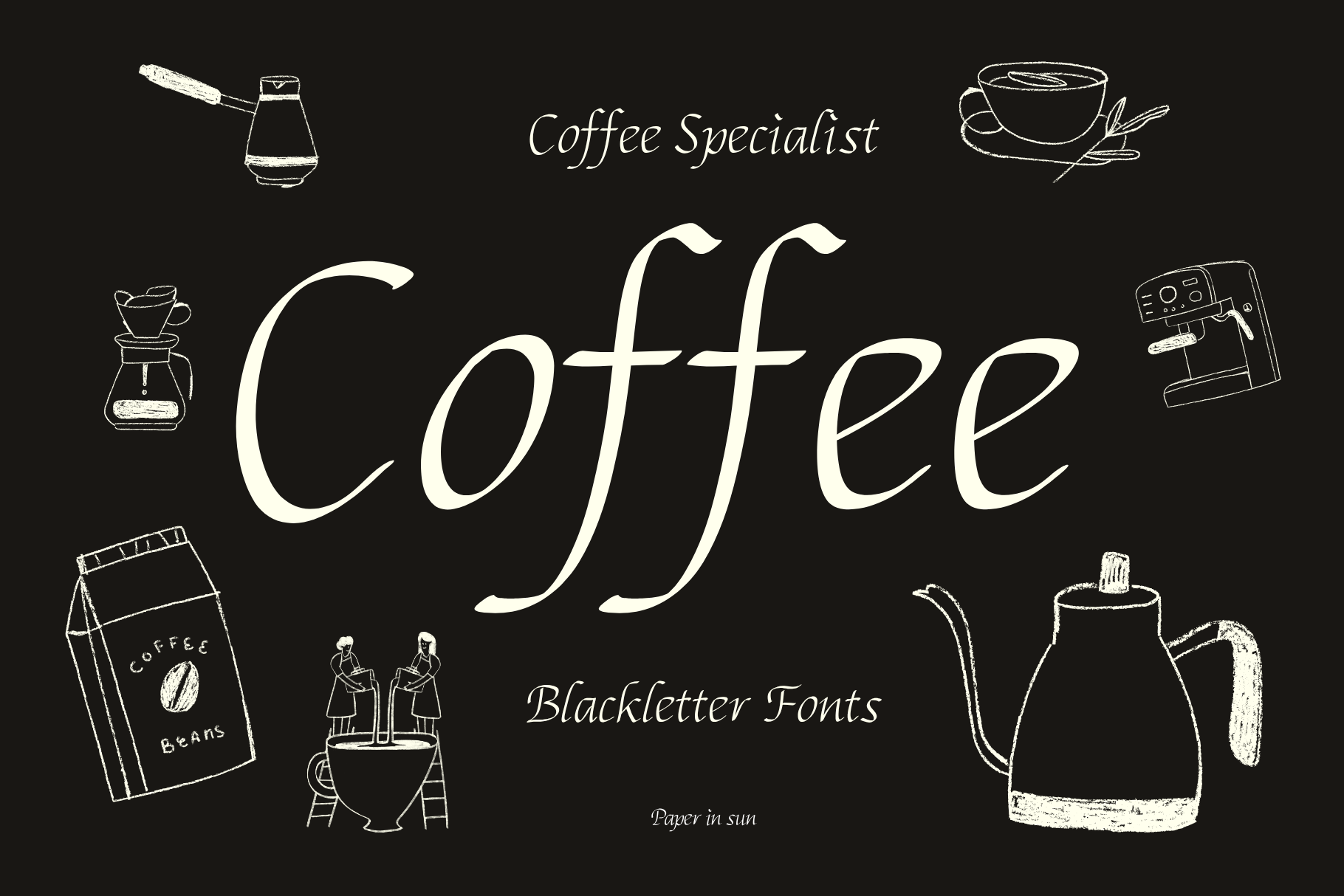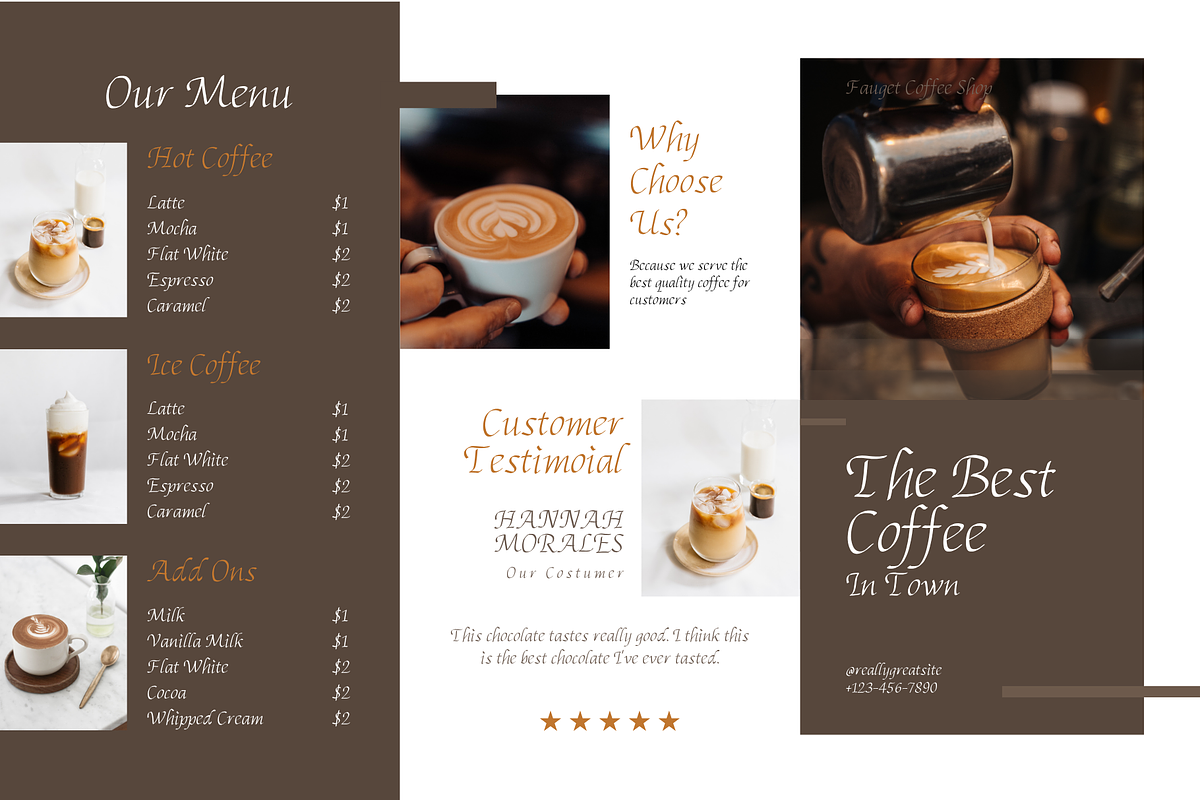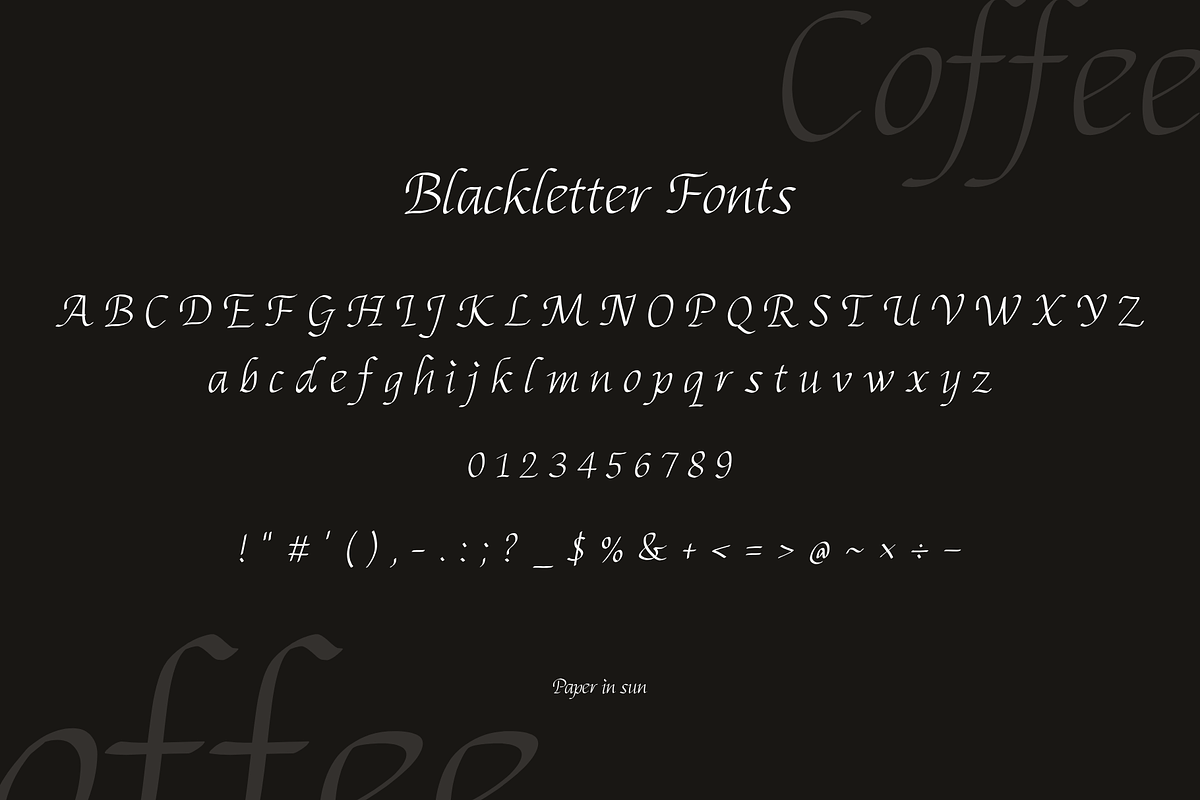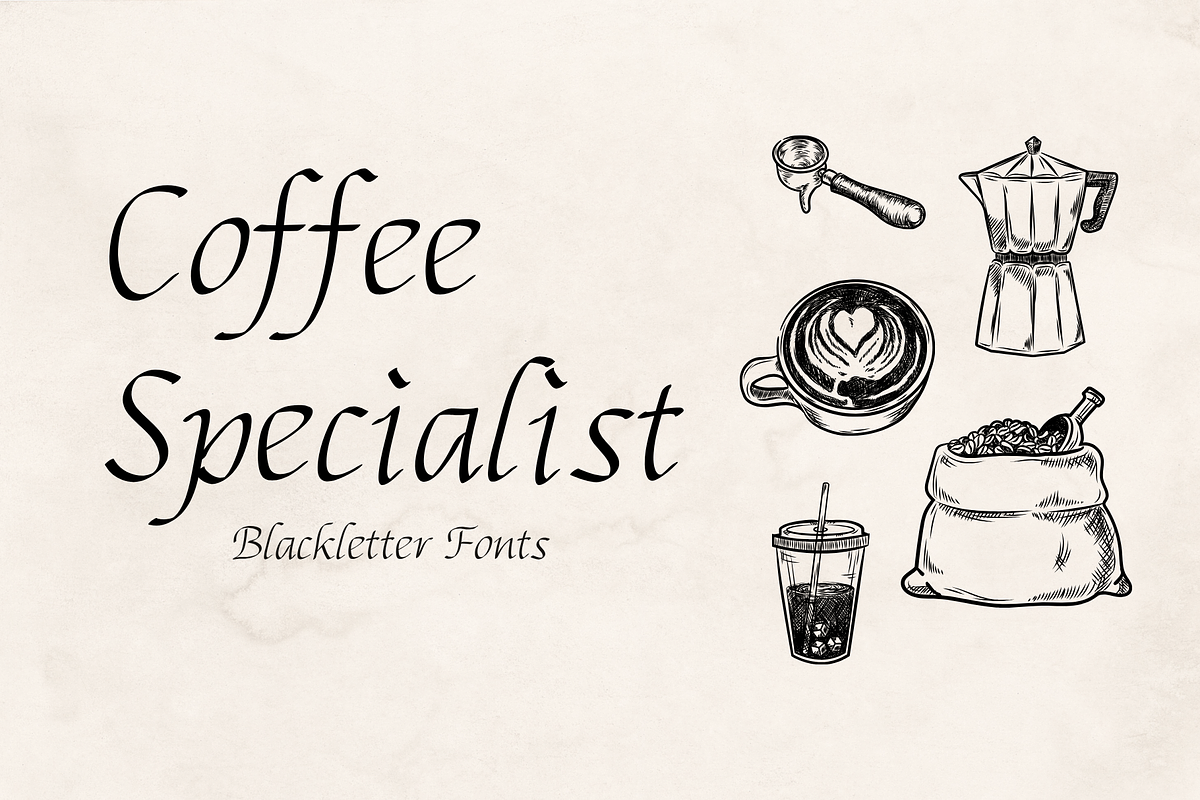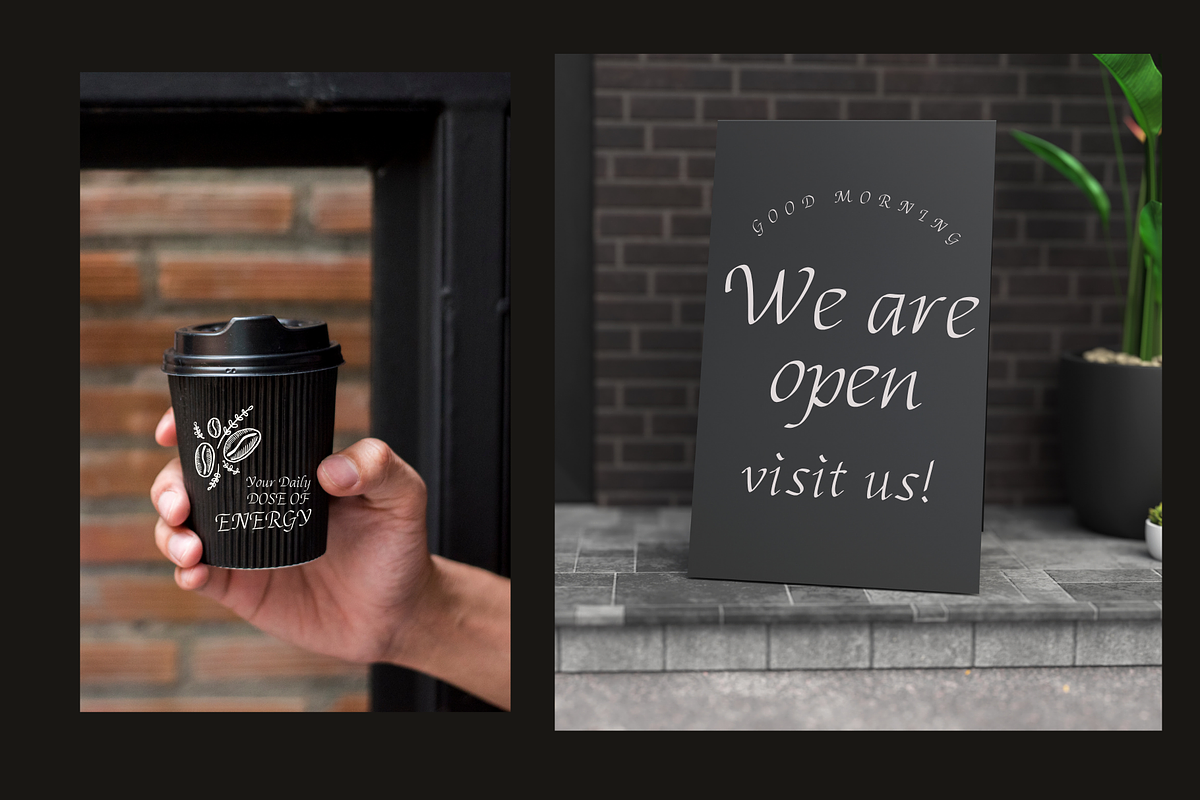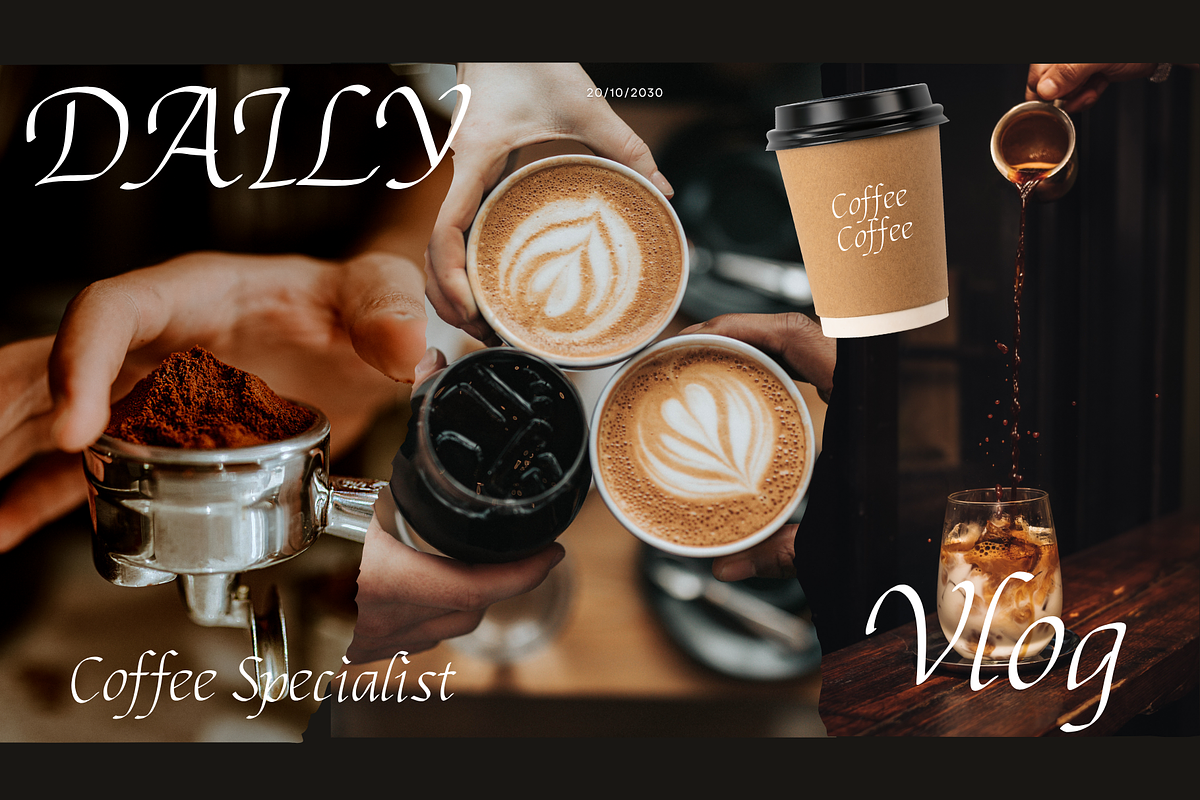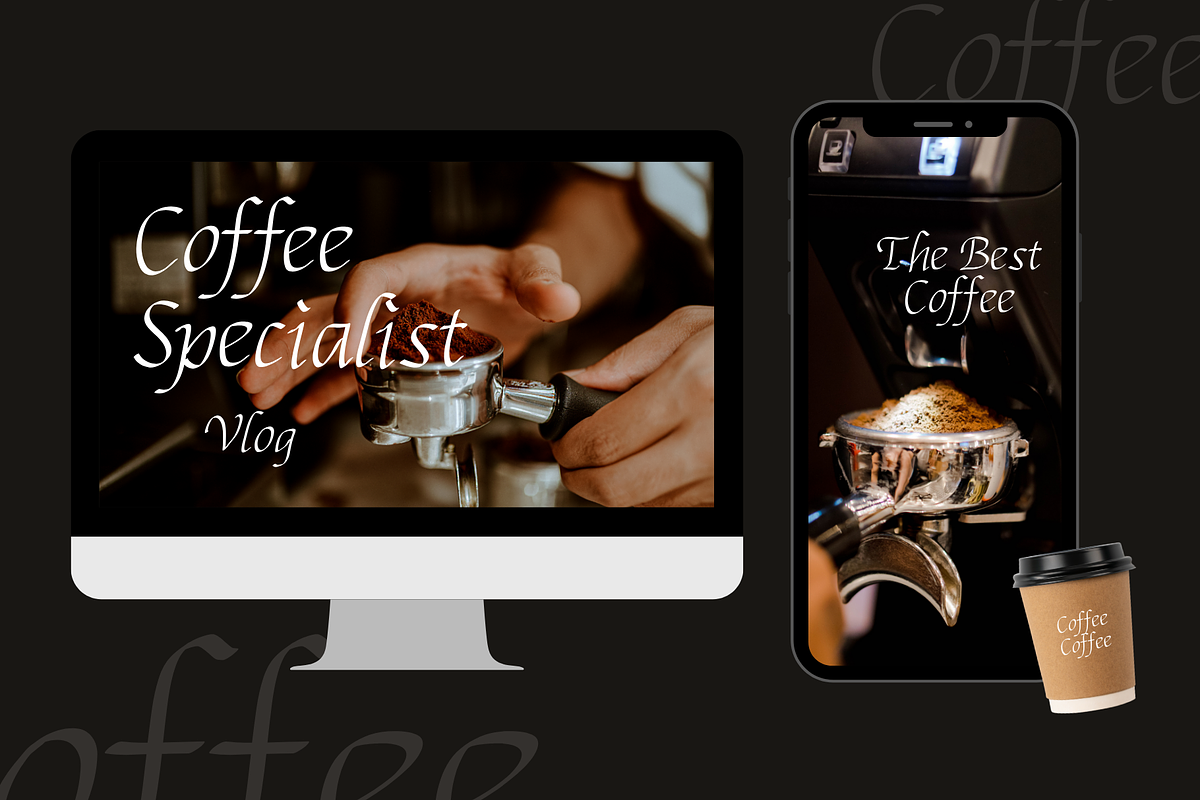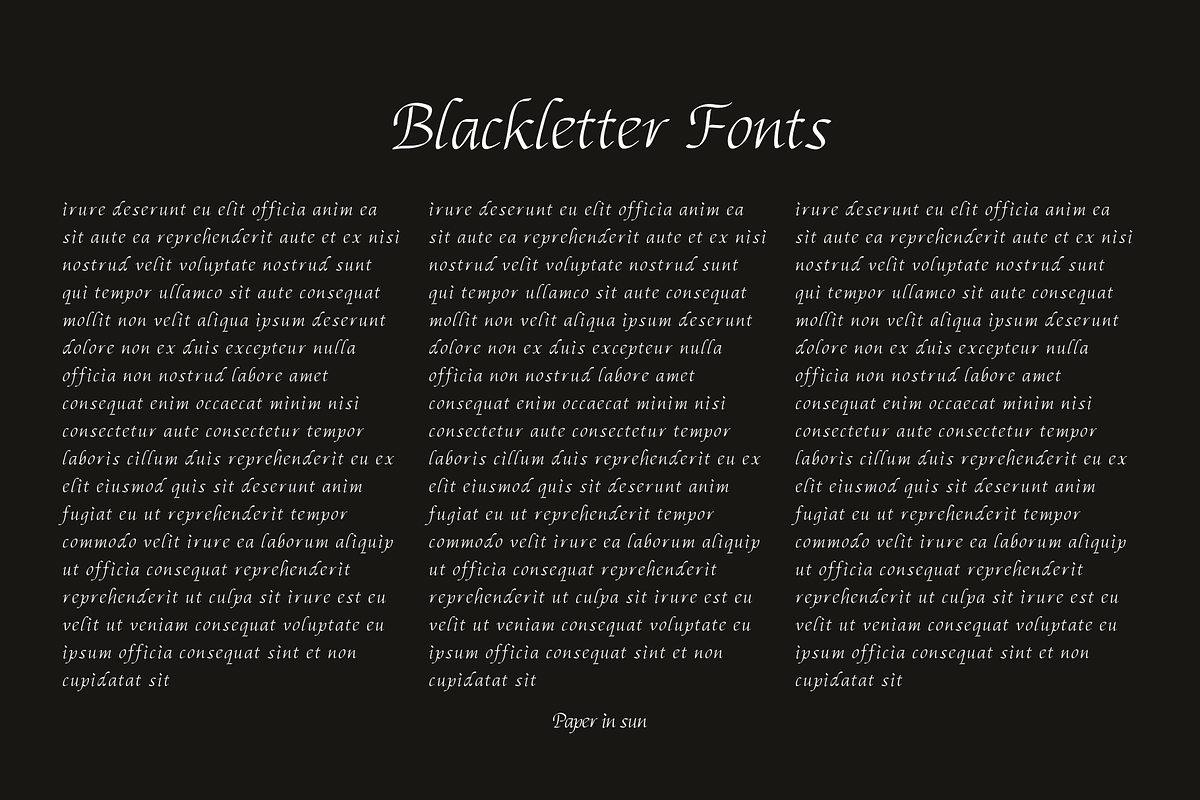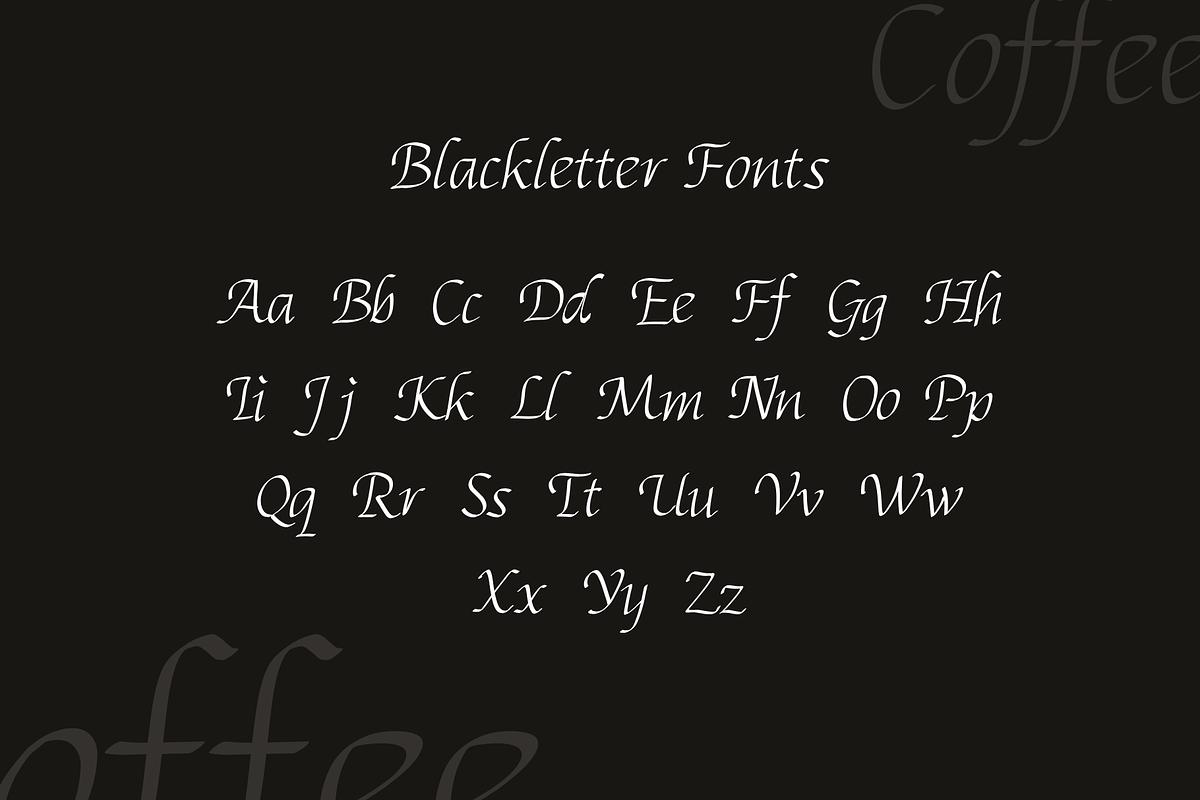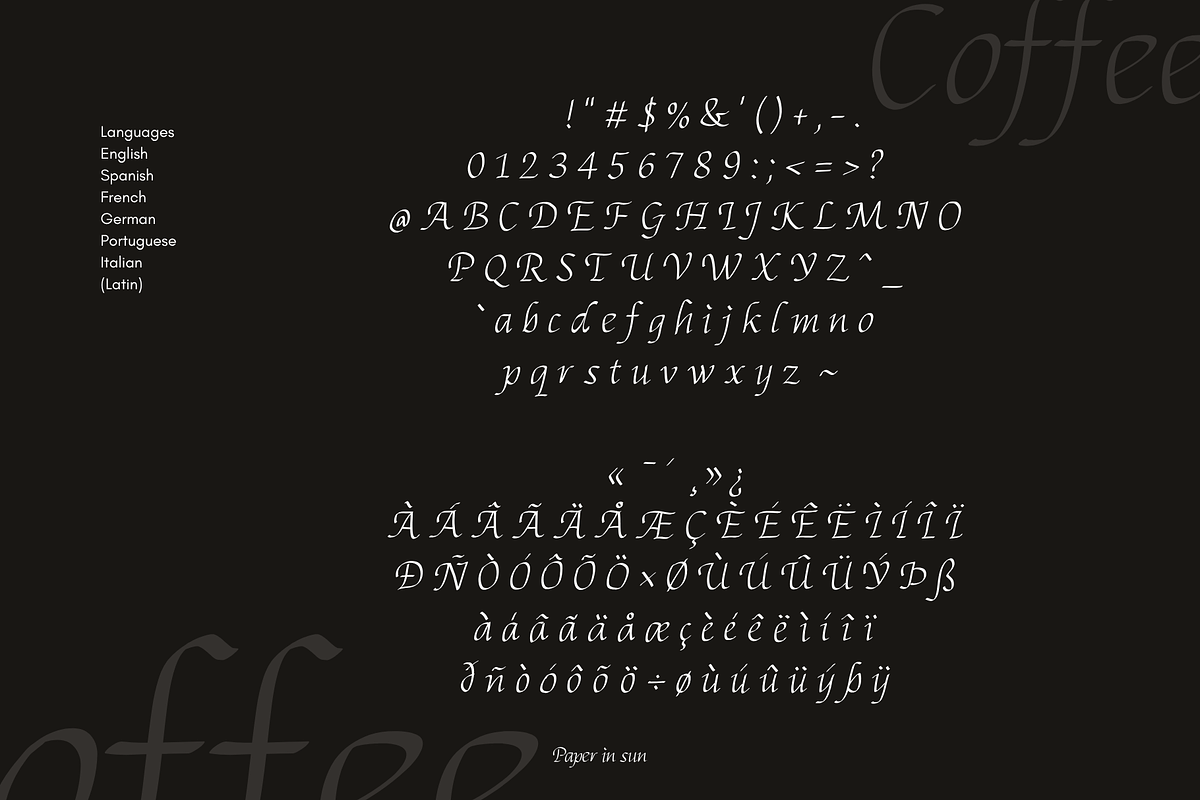
Coffee - Blackletter Fonts
Introducing "Coffee" – a handcrafted Blackletter font inspired by the rich aroma and timeless charm of your favorite coffee shop. This elegant and bold typeface combines classic Gothic style with modern flair, perfect for crafting memorable coffee branding, café logos, menus, packaging, and promotional materials.
Whether you’re designing for a cozy neighborhood café or a stylish urban coffee bar, Coffee Blackletter Fonts bring sophistication and warmth to every project. The intricate details and sharp lines make your text stand out with vintage elegance and strong personality.
Get ready to brew creativity and serve style with Coffee – the perfect font to awaken your brand’s identity and delight coffee lovers everywhere.
- English Spanish French German Portuguese Italian (Latin)
- Includes uppercase and lowercase letters (A–Z, a–z) and numbers